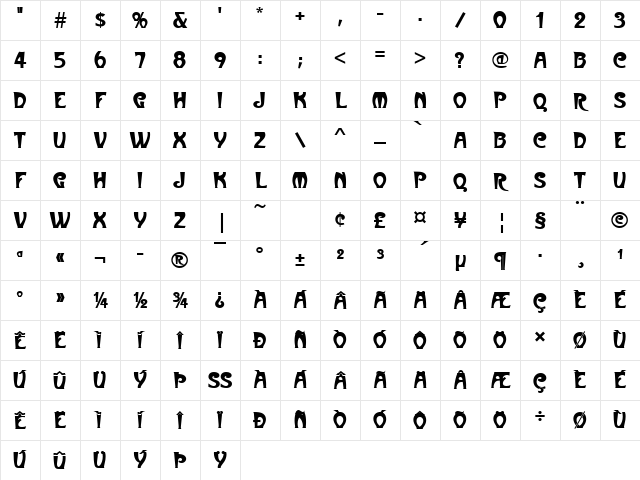
Metropolitaines Becker Poster Regular
Design Context for Metropolitaines Becker Poster
Metropolitaines Becker Poster is a composed and adaptable typeface that performs quietly and consistently across a wide range of design contexts.
Pro Tip: Use Metropolitaines Becker Poster in both headline and body roles to test its range before committing to a single application.